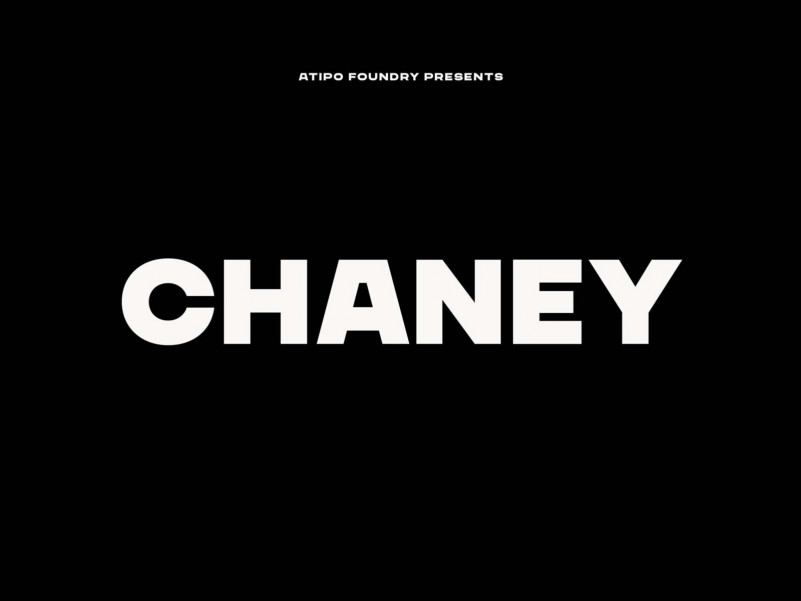
Chaney Font Family – Free Demo
A new bold sans serif font. Introducing Chaney Sans Font! CHANEY is a geometric all caps display font family of four weights (Regular, Wide, Extended and Ultra Extended) full of alternate characters. Its simple monoline letters come together in a solid font, This font is ideal for short text and paragraphs, and specially designed for logos, branding, editorial design and web use.